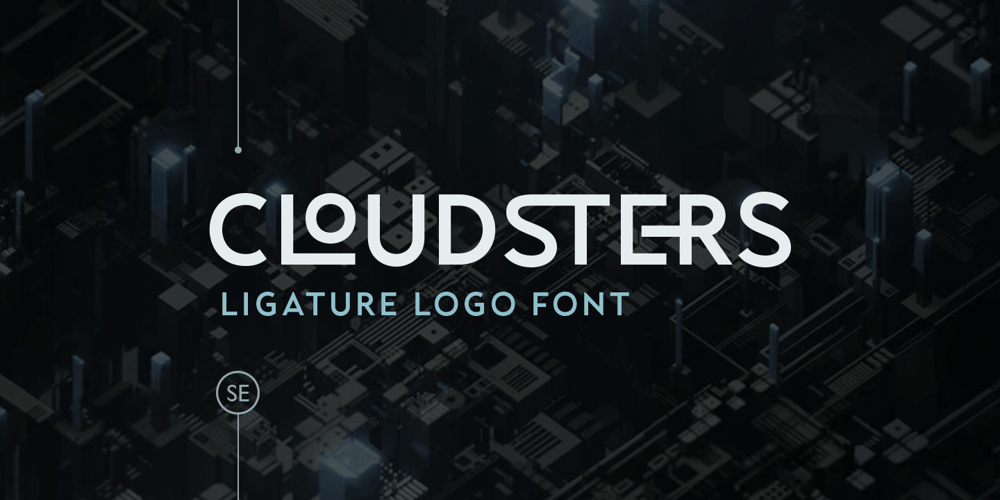
Cloudster Font Family was designed by Sarid Ezra and published by Sarid Ezra. Cloudster contains 1 styles and family package options. Introducing, Cloudsters, a logo font with ligatures!Cloudsters is a sans based font with unique ligature that will make your design looks clean and modern. You can use this font for any purpose, especially to make logotype. This font have special ligatures that will make your design more stand-out!